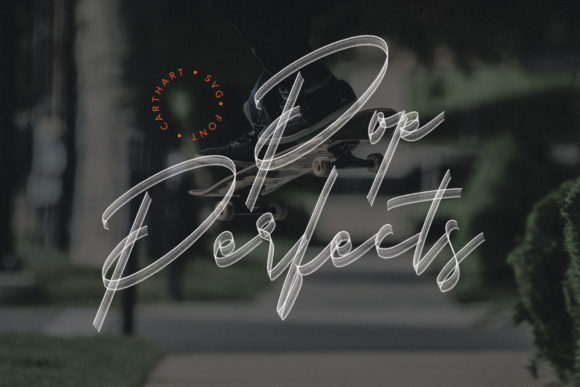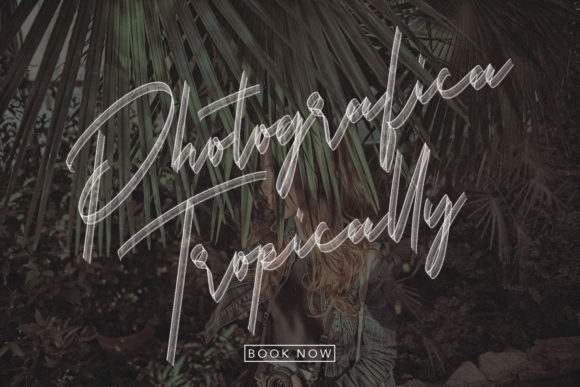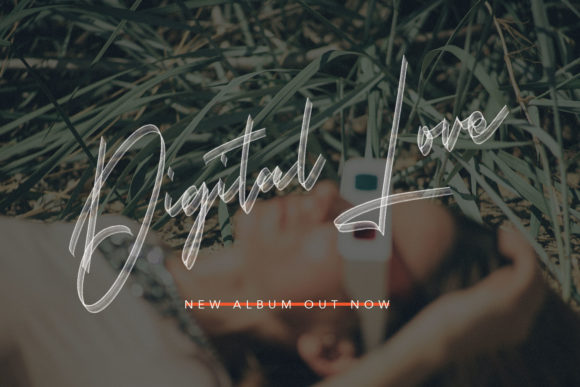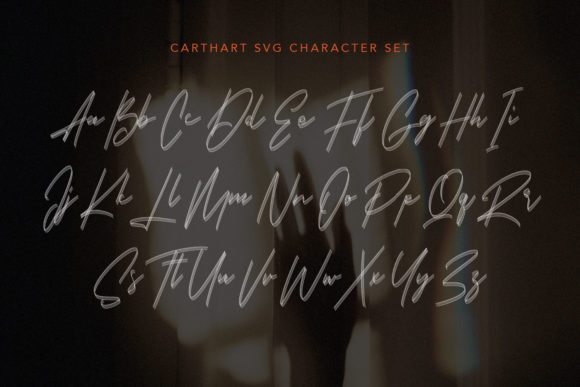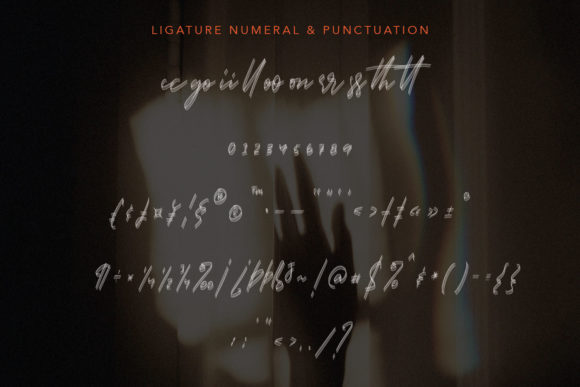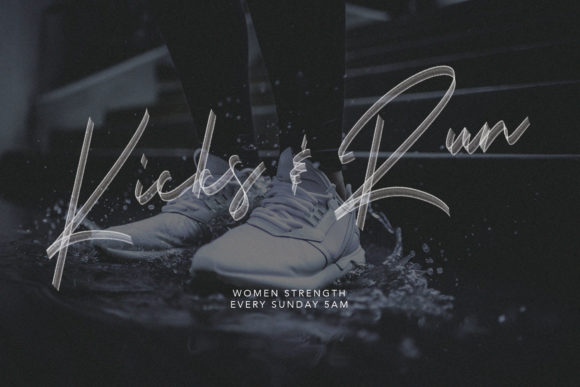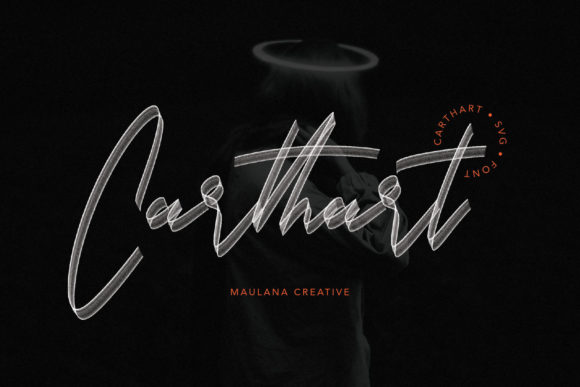
Unlock Authentic Brush Feel with Carthart Script Font
Are you tired of using the same old fonts in your designs? Do you want to add a touch of authenticity and uniqueness to your creative projects? Look no further than the Carthart script font! This beautifully crafted font is designed to bring a true brush feel to your designs, elevating them to new heights. In this article, we’ll dive into the world of Carthart font, exploring its features, benefits, and uses, and show you how it can become your new favorite go-to font.
The Story Behind Carthart Font
Carthart font is a masterfully designed script font that boasts a distinctive, hand-brushed look. Its creator carefully crafted each letter to resemble the natural flow and imperfections of brush calligraphy, giving it a unique and authentic feel. The result is a font that exudes elegance, sophistication, and a touch of playfulness.
Key Features of Carthart Font
• Authentic Brush Feel: Carthart font’s most notable feature is its authentic brush feel. Each letter is carefully designed to mimic the natural flow and texture of brush calligraphy, giving your designs a truly unique look.
• Highly Legible: Despite its artistic nature, Carthart font remains highly legible, making it perfect for use in a variety of design applications, from headings and titles to body text.
• Versatile: Carthart font is incredibly versatile, suitable for use in a wide range of design projects, including branding, packaging, posters, and more.
Benefits of Using Carthart Font
So why choose Carthart font for your designs? Here are just a few benefits you can expect:
• Adds Authenticity: Carthart font’s authentic brush feel adds a touch of authenticity to your designs, setting them apart from the crowd.
• Elevates Your Designs: With Carthart font, you can take your designs to the next level, adding a level of sophistication and elegance that will leave a lasting impression.
• Increases Creativity: Carthart font’s unique look and feel can help spark your creativity, inspiring you to try new things and push the boundaries of your design work.
Using Carthart Font in Your Designs
So how can you start using Carthart font in your designs? Here are a few ideas to get you started:
• Branding and Packaging: Use Carthart font to create eye-catching branding and packaging that stands out on store shelves.
• Posters and Flyers: Add a touch of elegance to your posters and flyers with Carthart font, perfect for promoting events, products, or services.
• Digital Designs: Use Carthart font in your digital designs, including social media graphics, email headers, and website titles.
Tips and Tricks for Getting the Most Out of Carthart Font
To get the most out of Carthart font, here are a few tips and tricks to keep in mind:
• Experiment with Colors: Carthart font looks great in a variety of colors, so don’t be afraid to experiment and find the perfect hue for your design.
• Play with Sizes: Carthart font is highly legible, even at small sizes, so feel free to experiment with different font sizes to add visual interest to your design.
• Combine with Other Fonts: Carthart font pairs well with a variety of other fonts, so don’t be afraid to combine it with other fonts to create a unique look.
In conclusion, Carthart script font is a game-changer for designers and crafters looking to add a touch of authenticity and uniqueness to their creative projects. With its authentic brush feel, high legibility, and versatility, Carthart font is the perfect choice for a wide range of design applications. Whether you’re looking to elevate your branding, packaging, posters, or digital designs, Carthart font is sure to become your new favorite go-to font.